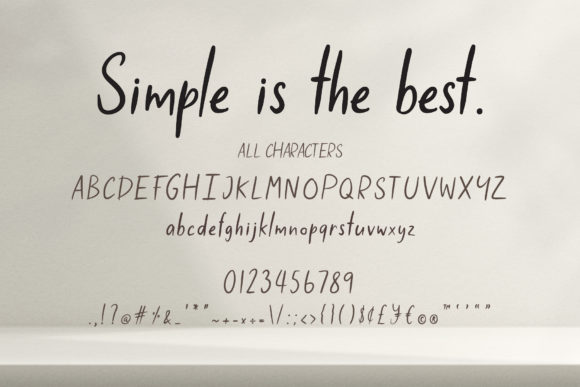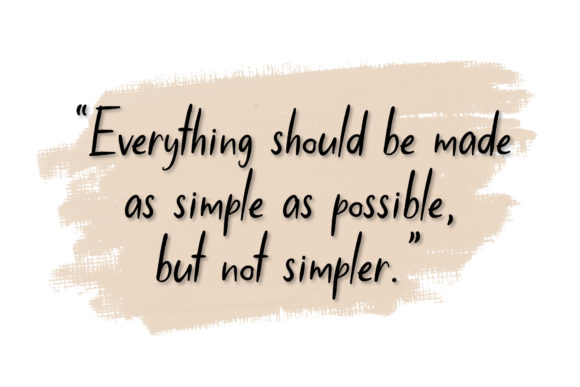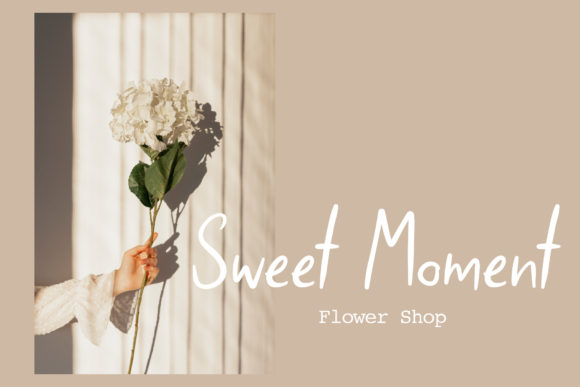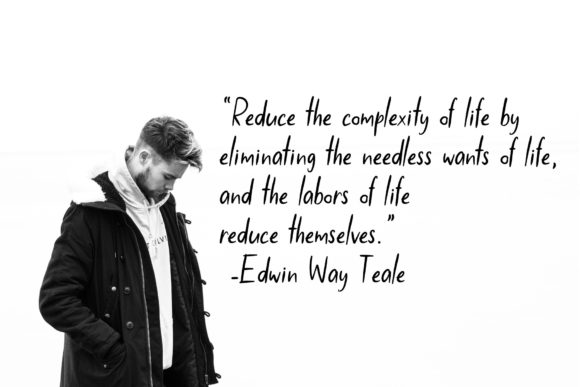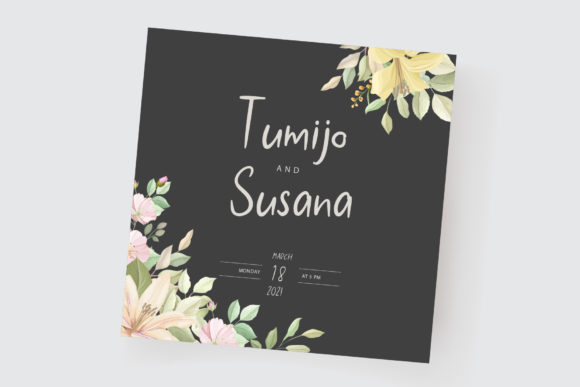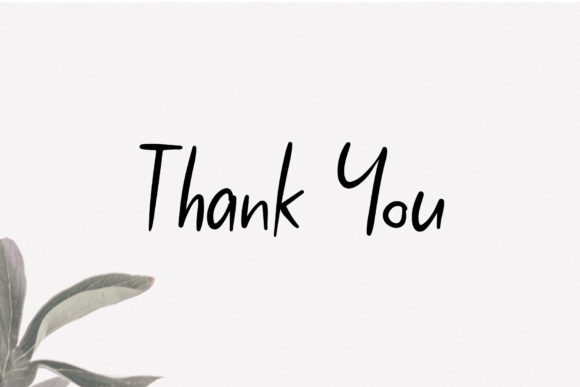
Simple is the Best Font
Simple is a cute and simple lettered handwritten font that can be used for all chalkboard quotes or teaching material! Its authentic look will add a personal and realistic feel to your designs.